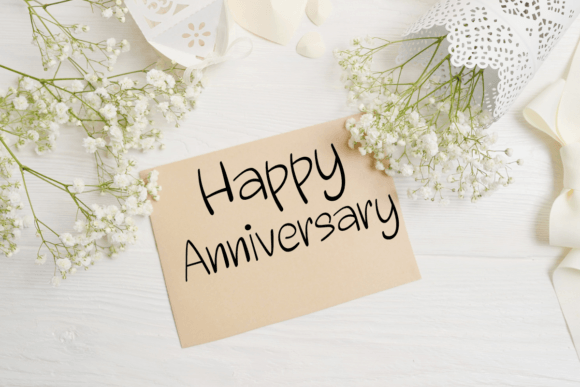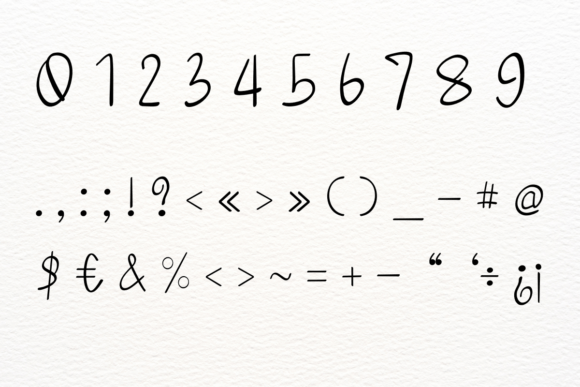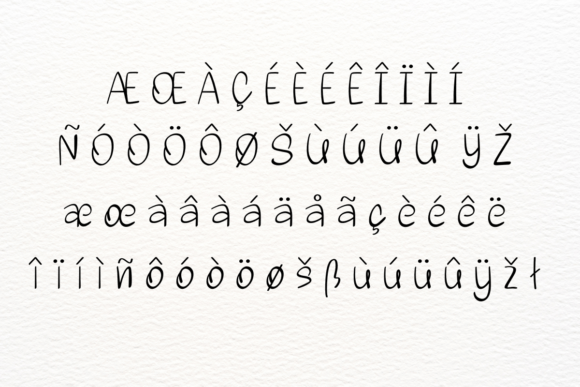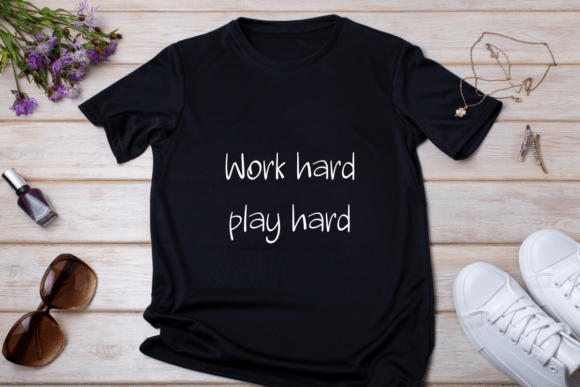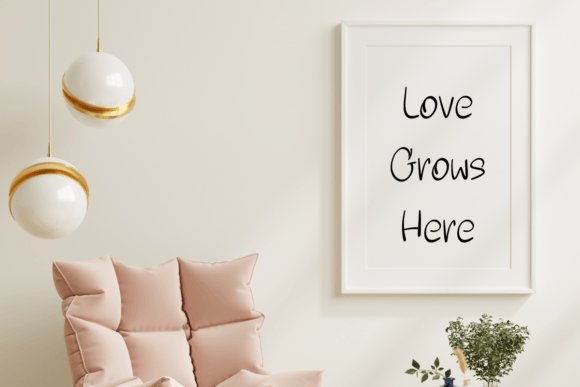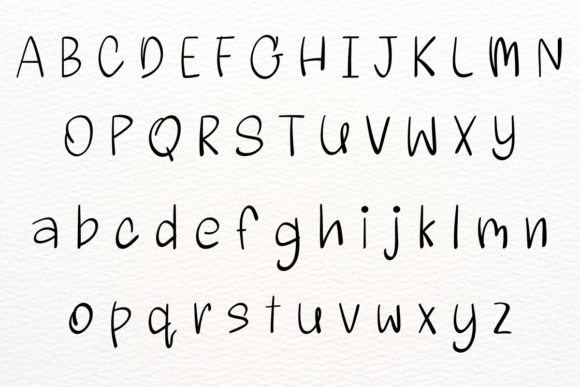
Bermudienne Font: Elevate Your Designs with a Friendly and Versatile Handwritten Style
Are you a designer or crafter looking for a font that can add a personal touch to your creations? Look no further than Bermudienne, a simple, neat, and adaptable handwritten font that’s perfect for a wide range of projects. In this article, we’ll explore the features and benefits of Bermudienne, and show you how it can elevate your designs and help you create stunning visual content.
What is Bermudienne Font?
Bermudienne is a beautifully crafted handwritten font that’s designed to be friendly, approachable, and versatile. Its simple and neat design makes it perfect for a wide range of applications, from fun projects like Easter, back to school, wedding, and party decorations, to more formal designs like invitations, posters, and greeting cards.
Key Features of Bermudienne Font
- Simple and Neat Design: Bermudienne has a clean and elegant design that’s easy to read and looks great in any context.
- Adaptable: This font is highly versatile and can be used for a wide range of projects, from fun and playful designs to more formal and professional ones.
- Handwritten Style: Bermudienne has a warm and personal feel that’s perfect for creating designs that need a friendly touch.
- Easy to Read: The font is highly legible, making it perfect for designs that require a clear and easy-to-read text.
Use Cases for Bermudienne Font
Bermudienne is a highly versatile font that can be used for a wide range of projects, including:
- Easter and Spring Decorations: Add a touch of springtime freshness to your Easter and spring-themed designs with Bermudienne.
- Back to School: Create fun and engaging back to school designs, such as posters, invitations, and worksheets, with Bermudienne.
- Wedding and Party Decorations: Use Bermudienne to create beautiful and elegant wedding and party decorations, such as invitations, banners, and centerpieces.
- Fall and Halloween Decorations: Add a touch of autumnal charm to your fall and Halloween designs with Bermudienne.
- Christmas and Holiday Decorations: Create festive and fun Christmas and holiday designs, such as posters, invitations, and greeting cards, with Bermudienne.
- Clothing and Accessories: Use Bermudienne to create fun and stylish designs for clothing, mugs, and other accessories.
- Child-Related Designs: Bermudienne is perfect for creating designs for kids, such as children’s books, posters, and worksheets.
- Greeting Cards and Invitations: Use Bermudienne to create beautiful and elegant greeting cards and invitations for any occasion.
Benefits of Using Bermudienne Font
There are many benefits to using Bermudienne font in your designs, including:
- Unique and Personal Touch: Bermudienne adds a unique and personal touch to your designs, making them stand out from the crowd.
- Highly Versatile: This font can be used for a wide range of projects, making it a great addition to your font library.
- Easy to Read: Bermudienne is highly legible, making it perfect for designs that require a clear and easy-to-read text.
- Time-Saving: With Bermudienne, you can create stunning designs in no time, thanks to its clean and elegant design.
In conclusion, Bermudienne font is a simple, neat, and adaptable handwritten font that’s perfect for designers and crafters looking to add a friendly and personal touch to their creations. With its highly versatile design, ease of use, and unique style, Bermudienne is an incredible asset to your font library. Whether you’re working on a fun project or a more formal design, Bermudienne is sure to elevate your creations and help you achieve stunning results.